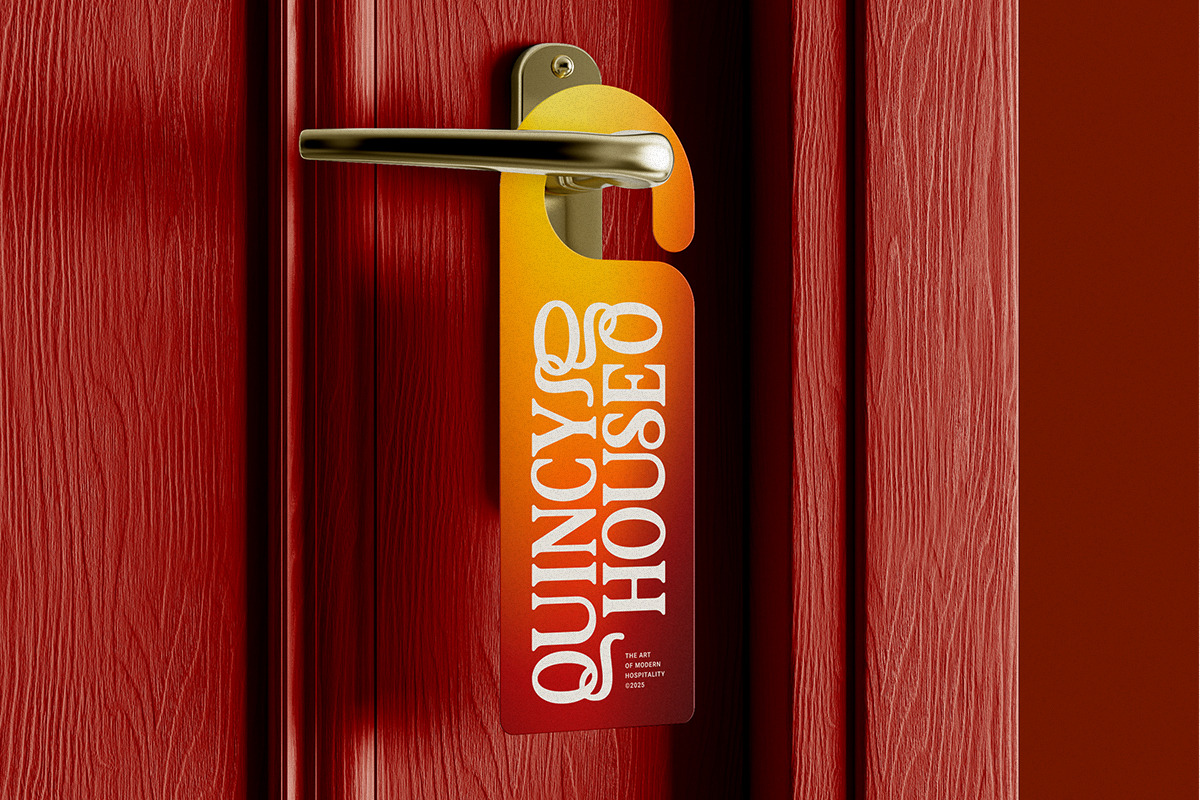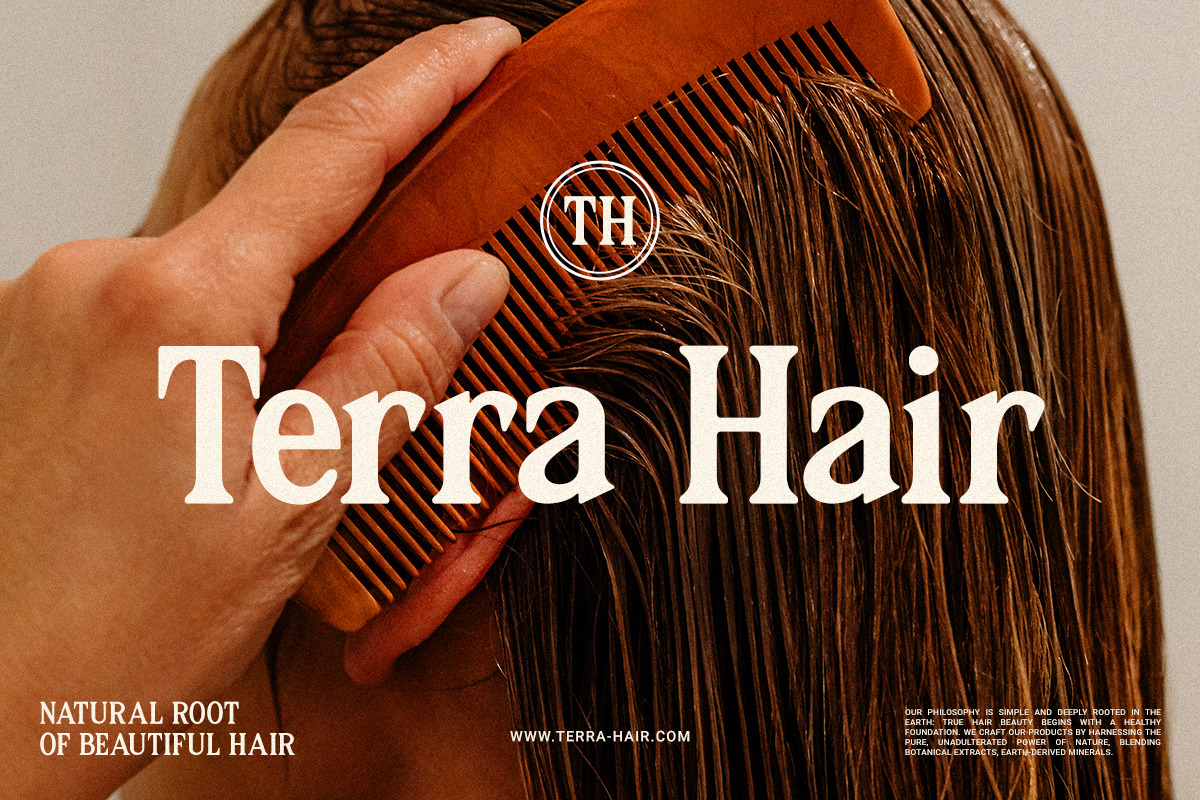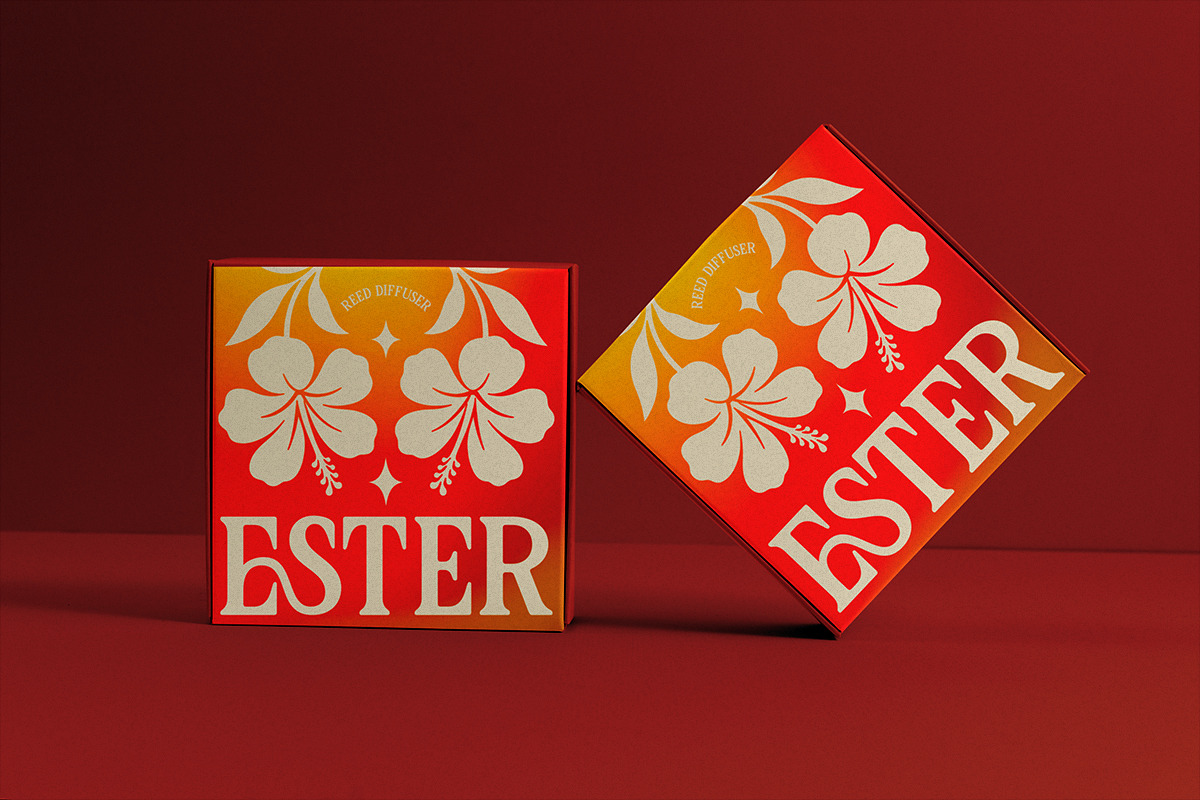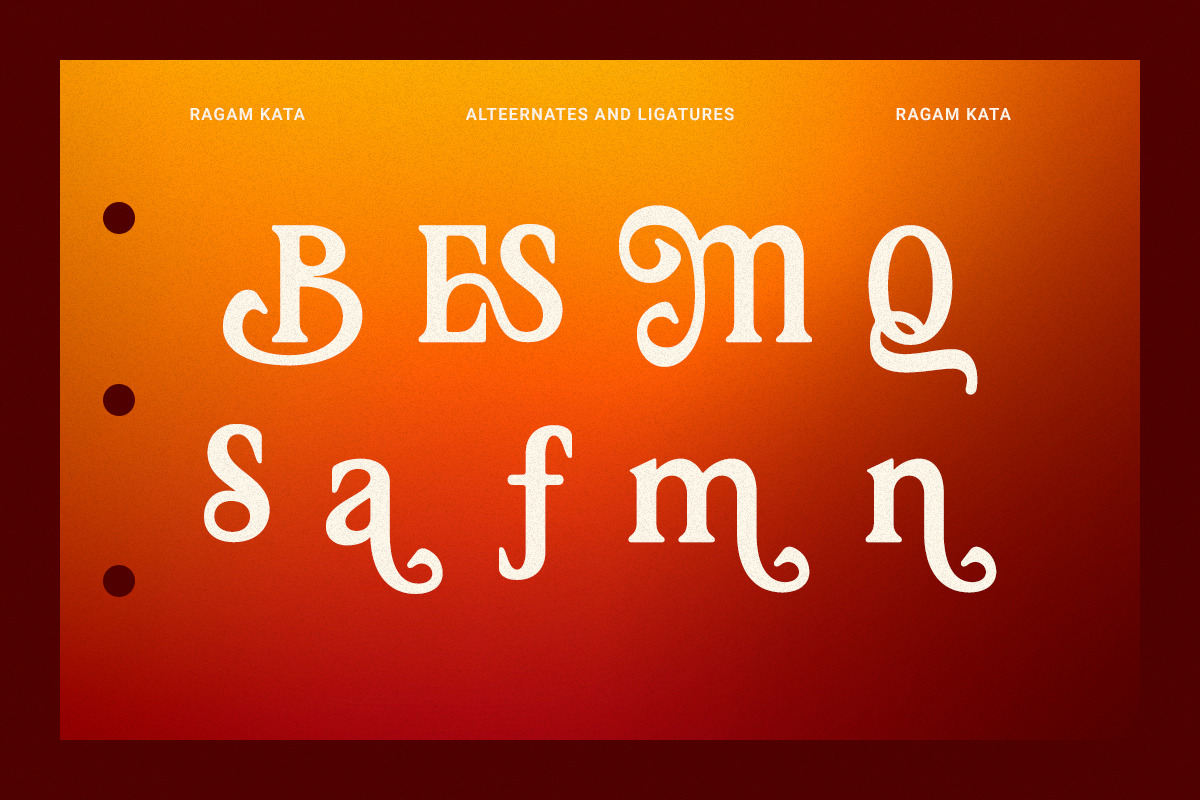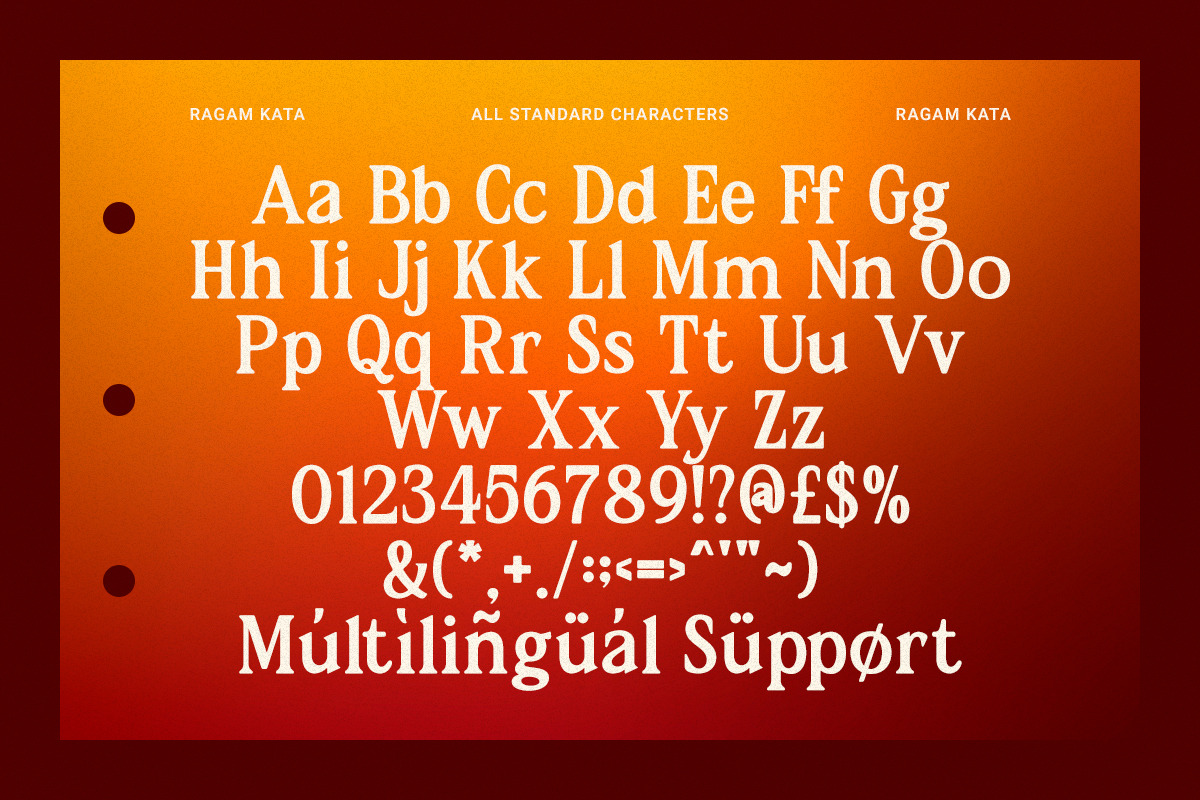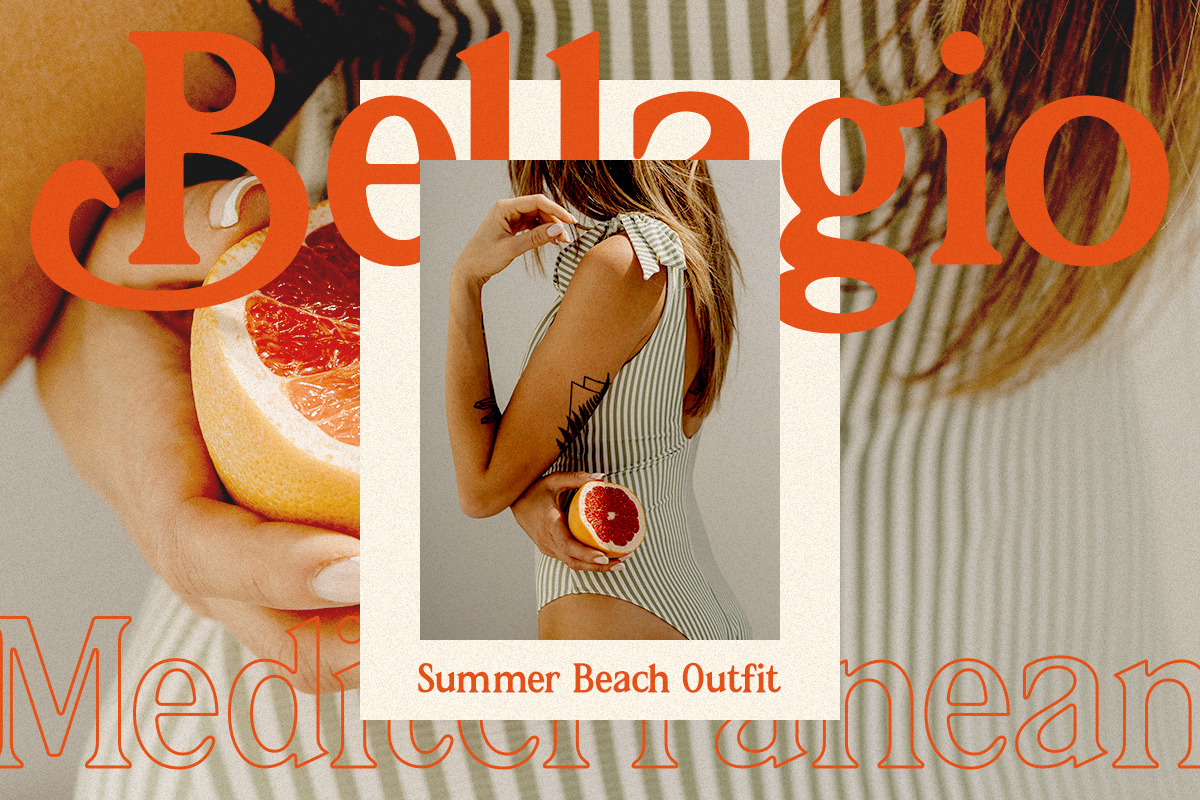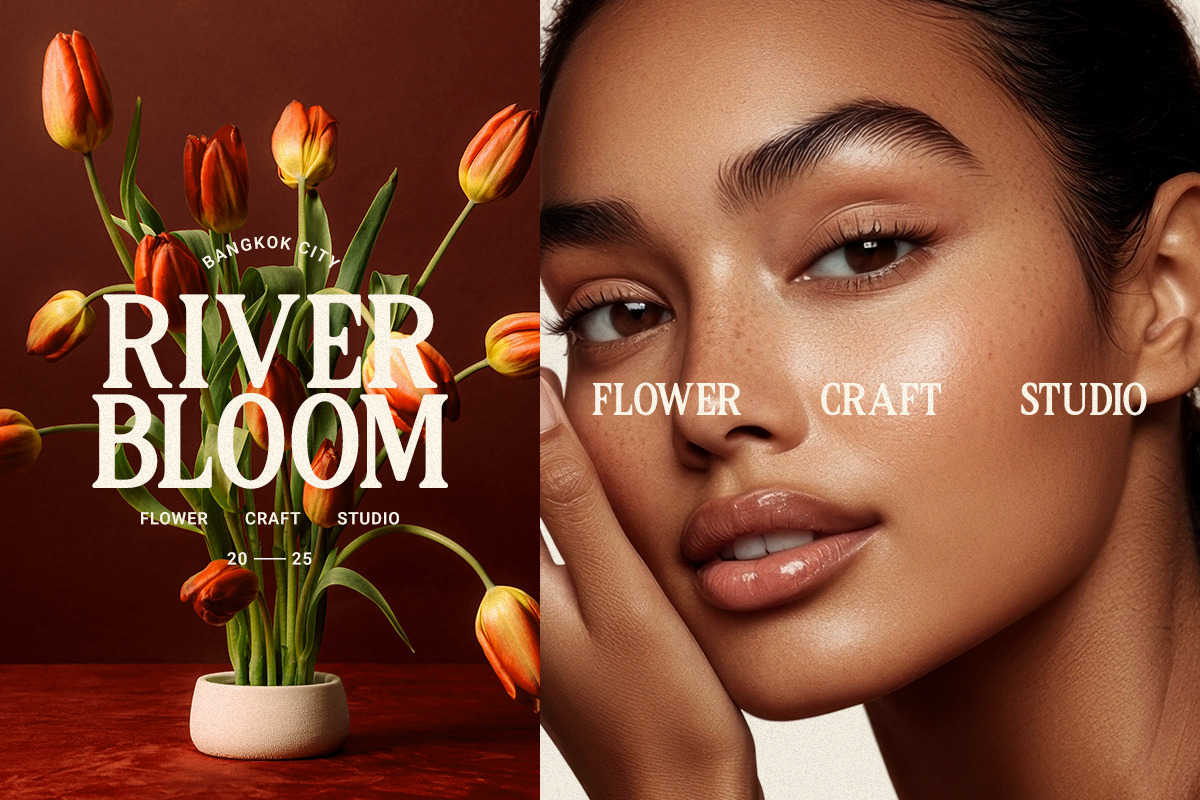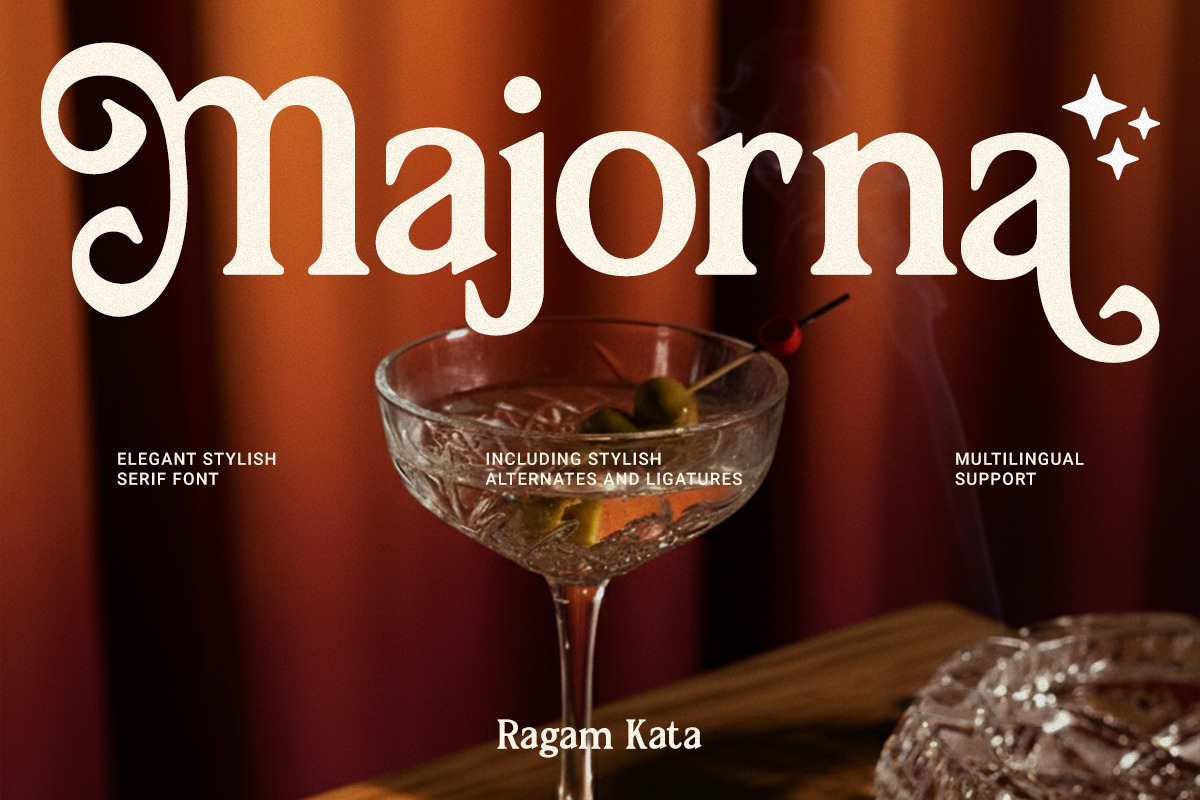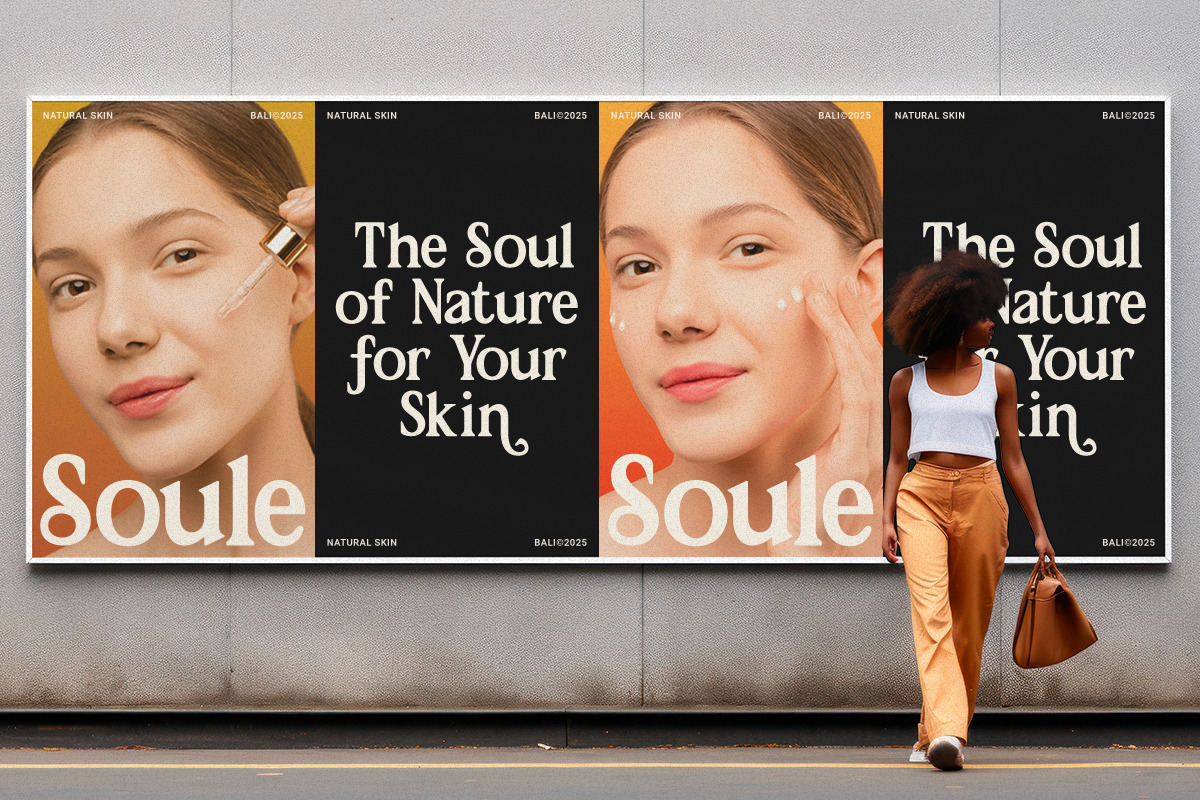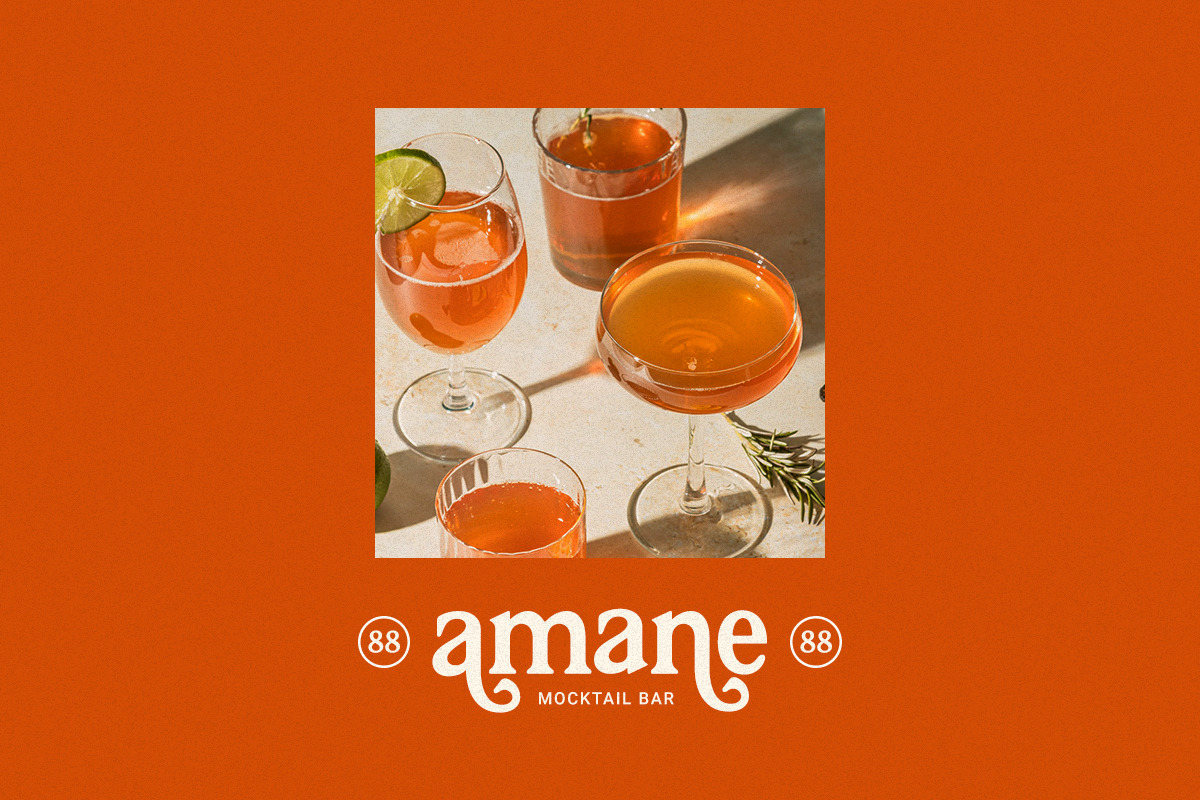
Majorna - Elegant Stylish Font
Majorna is an elegant and stylish serif typeface that blends vintage charm with modern sophistication. Featuring graceful curves, distinctive swashes, and refined ligatures, Majorna is perfect for high-end branding, editorial design, invitations, packaging, and luxury logos. Its timeless character brings a warm and classy aesthetic to every project. With multilingual support and alternates, Majorna gives designers endless creative possibilities to express refinement and style.